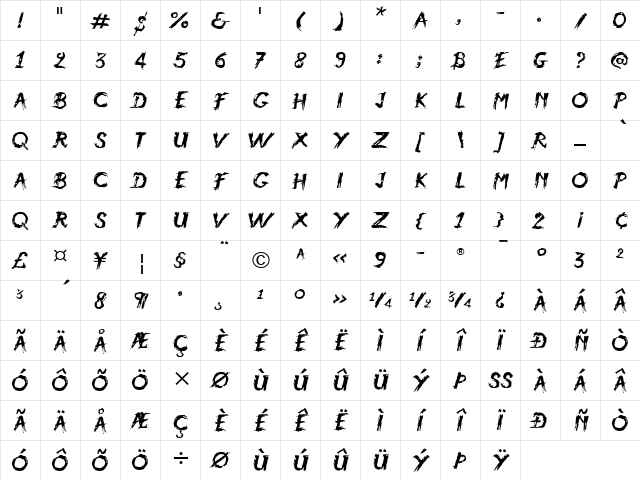
Atmosphere ITC Medium Italic Free Font
Atmosphere ITC Medium Italic
Foundry: International Typeface Corporation
Design Context for Atmosphere ITC
Atmosphere ITC is a composed and adaptable typeface that performs quietly and consistently across a wide range of design contexts. The slanted form adds forward momentum and visual energy.